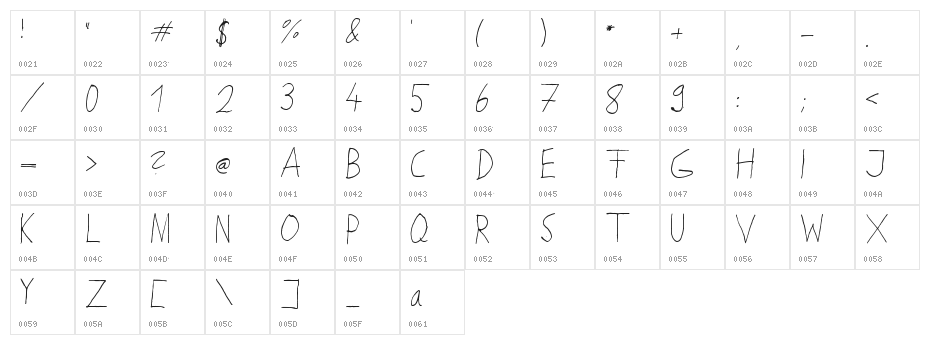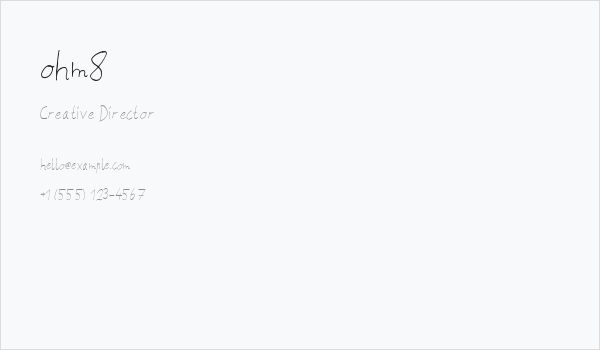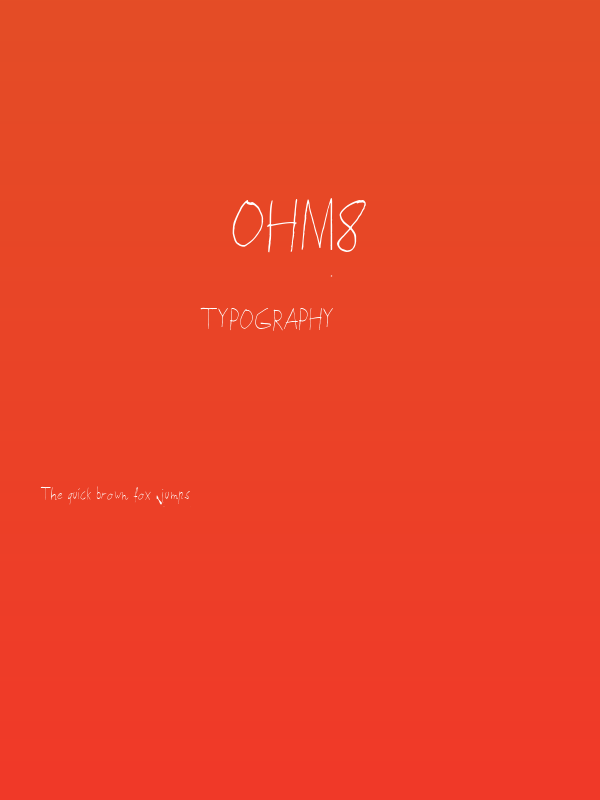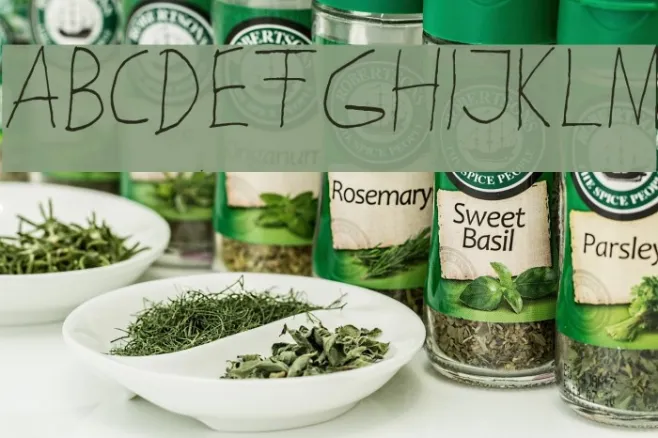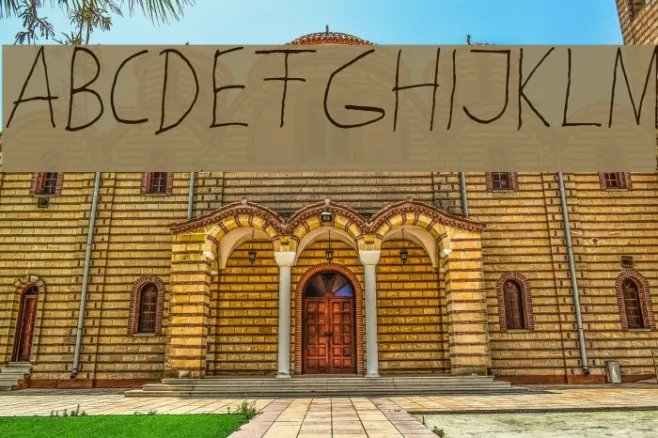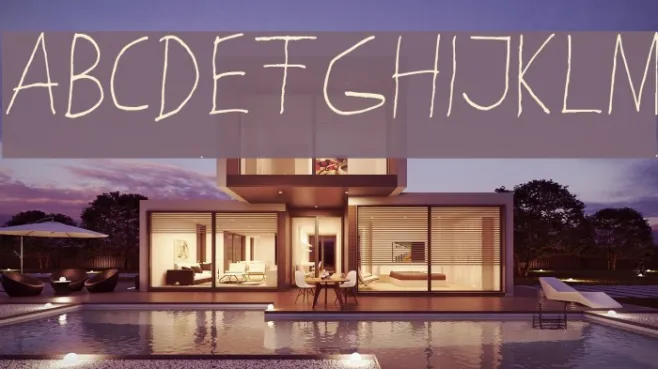
ohm8 Font
ohm8 Description
This font exhibits a handwritten style with a casual and organic feel. The characters are unevenly spaced, giving it a natural and authentic look. The strokes are irregular, with varying thickness that adds to its charm. The uppercase letters are tall and slender, while the lowercase letters maintain a consistent height, creating a harmonious balance. Numbers and special characters follow the same handwritten aesthetic, making the font versatile for creative projects. Its informal style makes it suitable for personal and artistic use, adding a personal touch to any design.
| Use Case | Personal notes, Artistic projects |
| Proposed Projects | Ideal for personal notes, invitations, greeting cards, and artistic projects. |